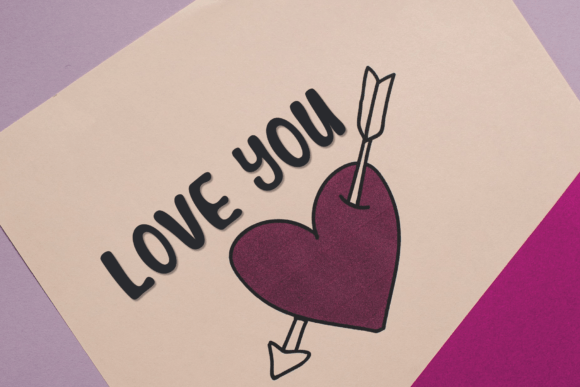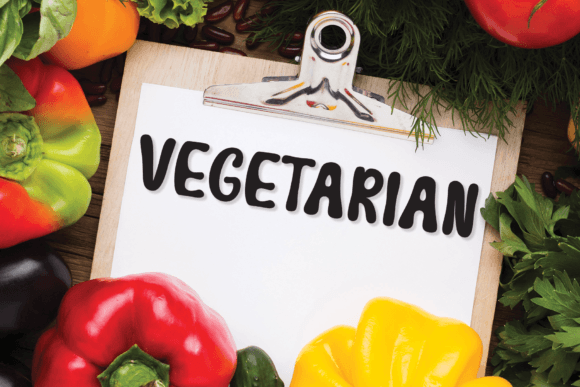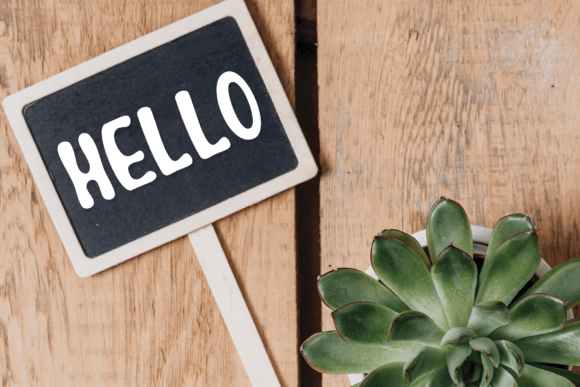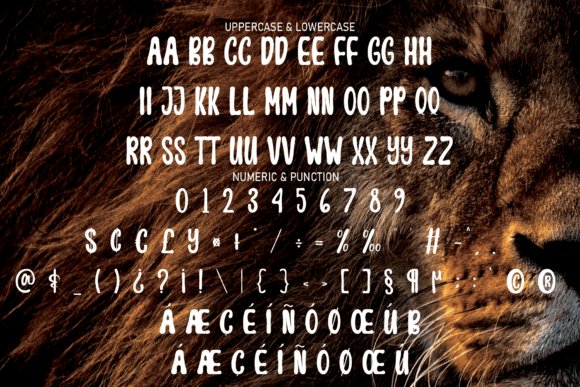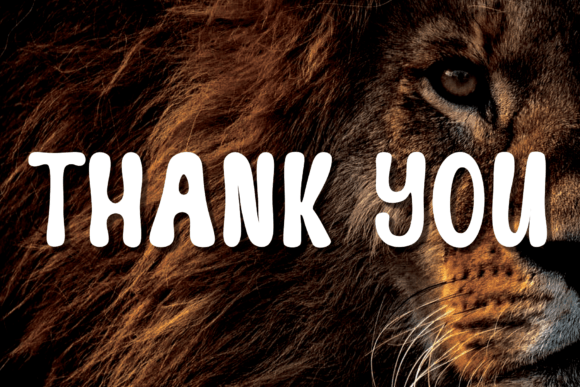
Introducing Big Movie Font: The Ultimate Choice for Creative Designs
Are you a designer, crafter, or DIY enthusiast looking for a unique and fun font to elevate your creative projects? Look no further than Big Movie Font, a friendly and fun handwritten display font that’s perfect for a wide range of applications. In this article, we’ll explore the features and benefits of Big Movie Font, and show you how to use it to create stunning designs that stand out from the crowd.
What is Big Movie Font?
Big Movie Font is a carefully crafted handwritten display font that’s designed to add a touch of personality and whimsy to your designs. With its bold and playful style, this font is perfect for creating eye-catching t-shirt designs, baby onesies, nursery decorations, digital designs, cards, and many more. Whether you’re a seasoned designer or a DIY novice, Big Movie Font is easy to use and versatile enough to suit any creative project.
Key Features of Big Movie Font
- Handwritten style: Big Movie Font boasts a friendly and fun handwritten style that’s perfect for creating unique and personalized designs.
- Display font: With its bold and playful style, Big Movie Font is ideal for use as a display font in a variety of creative projects.
- Versatile: From t-shirt designs to nursery decorations, Big Movie Font can be used in a wide range of creative projects.
Creative Uses for Big Movie Font
Big Movie Font is a versatile font that can be used in a variety of creative projects, including:
- T-shirt designs: Create eye-catching t-shirt designs that are perfect for casual wear or as a promotional item.
- Baby onesies: Add a touch of personality to baby onesies with Big Movie Font’s playful and whimsical style.
- Nursery decorations: Use Big Movie Font to create personalized nursery decorations, such as wall art and decals.
- Digital designs: Incorporate Big Movie Font into your digital designs, such as social media graphics and blog posts.
- Cards and invitations: Add a personal touch to your cards and invitations with Big Movie Font’s friendly and fun style.
Tips for Using Big Movie Font
To get the most out of Big Movie Font, here are some tips to keep in mind:
- Experiment with colors: Big Movie Font looks great in a variety of colors, so don’t be afraid to experiment and find the perfect hue for your design.
- Play with textures: Add depth and interest to your design by incorporating textures and patterns.
- Keep it simple: Don’t overcomplicate your design – Big Movie Font is perfect for simple, bold designs that make a statement.